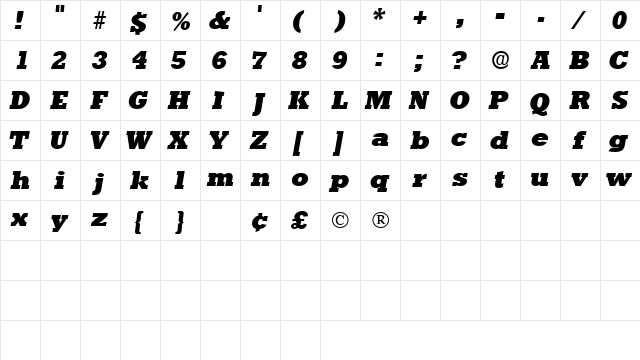
DolmenDisplaySSK Italic
Design Context for DolmenDisplaySSK Typeface
DolmenDisplaySSK is built around its visual character rather than neutral utility — its distinctive forms are designed to make an impression at display sizes. The dynamic lean of this cut emphasises speed and emphasis in any layout.
Font Pairing: Pair with a clean neutral sans-serif for body copy to let DolmenDisplaySSK's character lead without overwhelming the composition.
Pro Tip: Use DolmenDisplaySSK exclusively at display sizes — it was designed to be seen, not read at length. Let a neutral companion handle body copy.